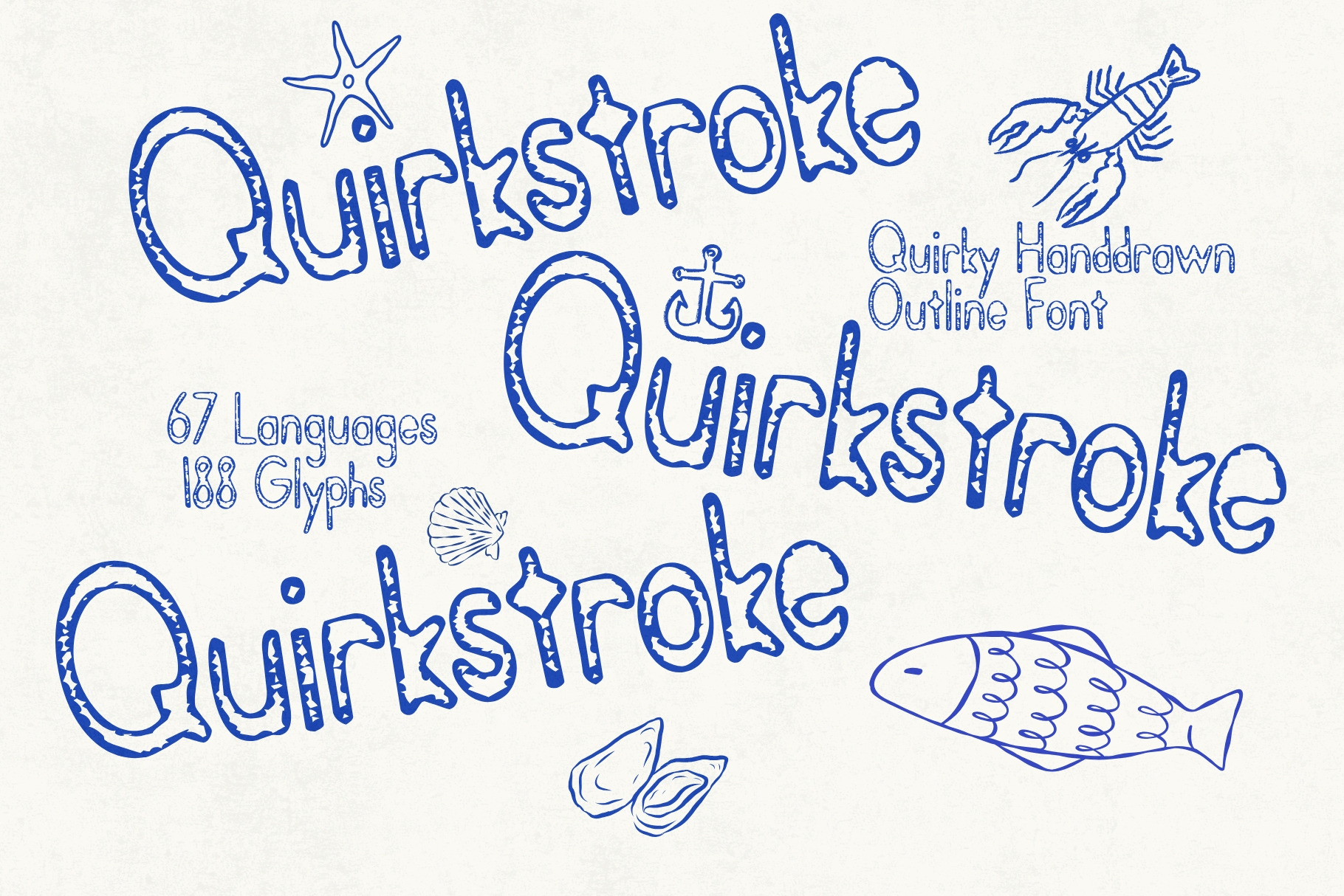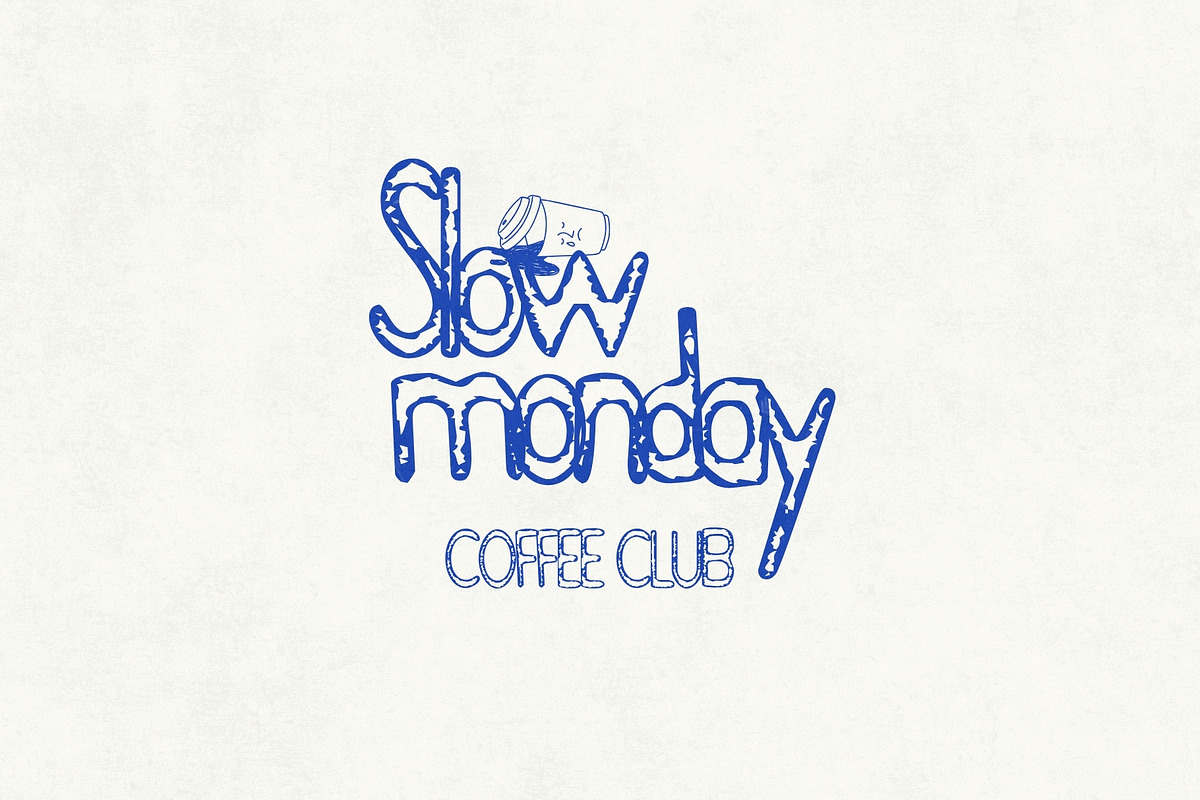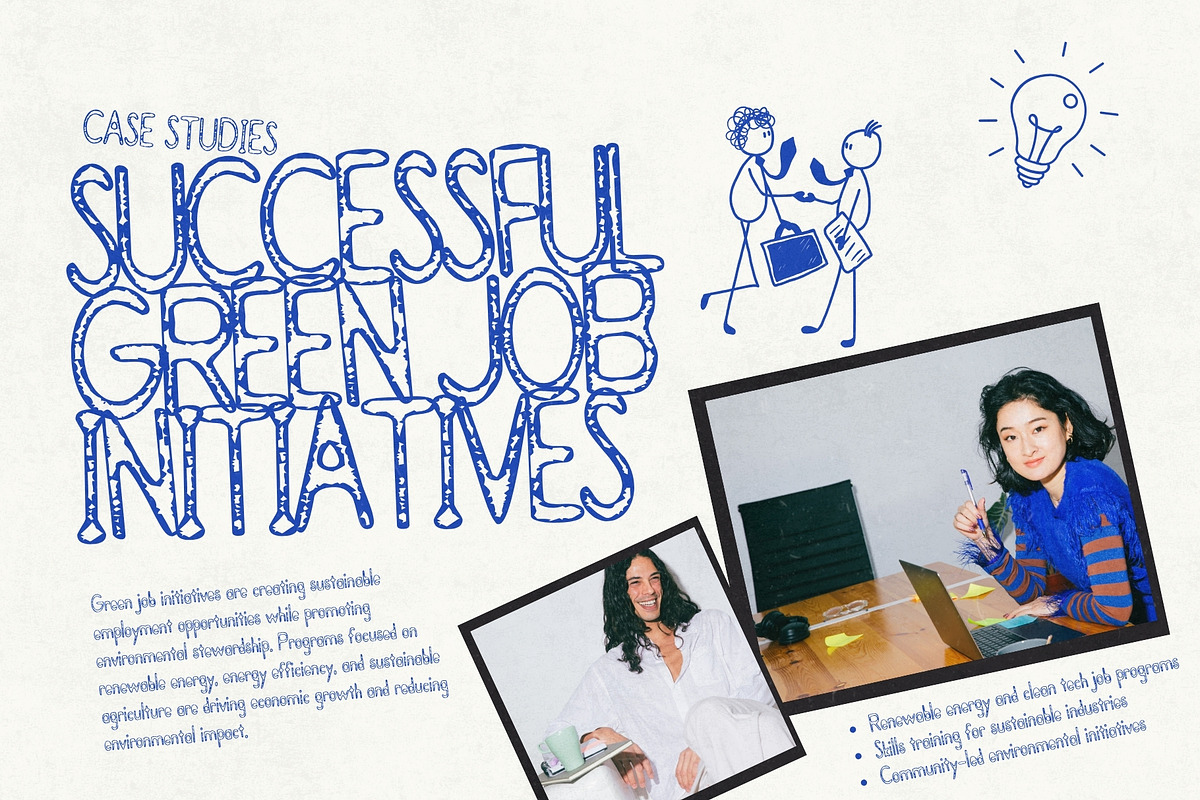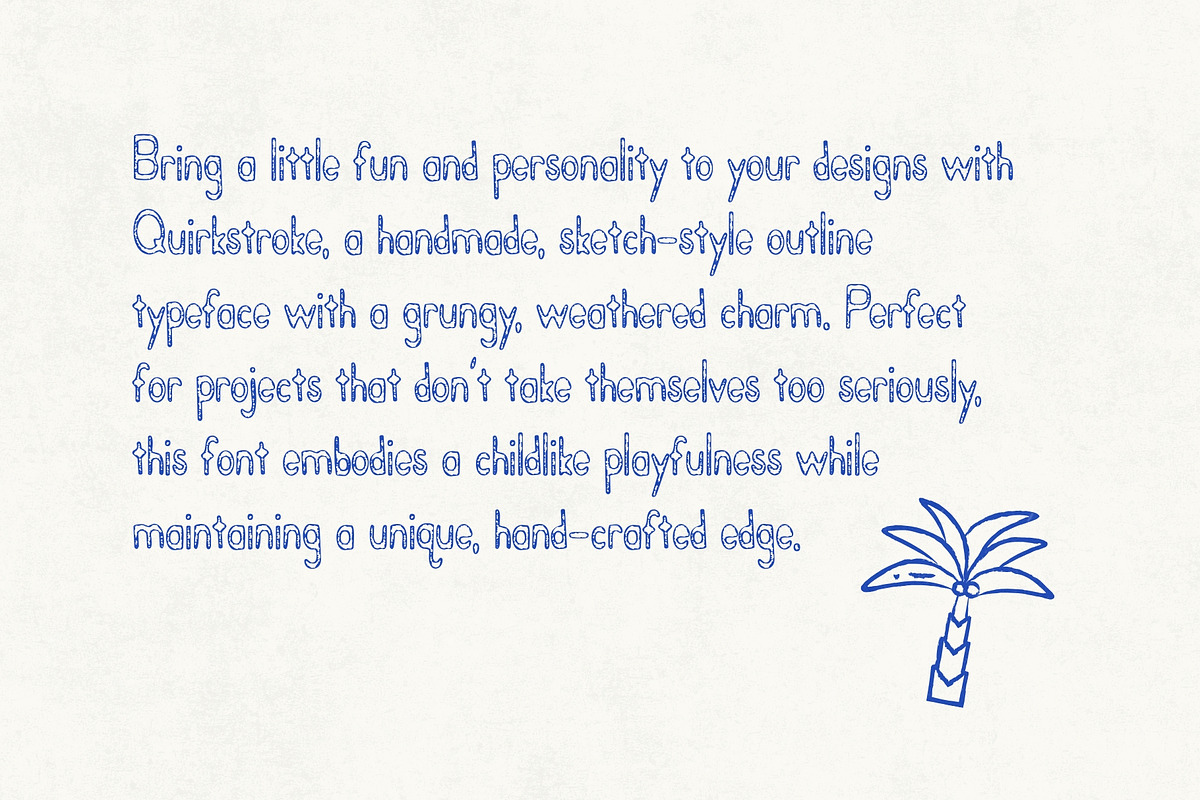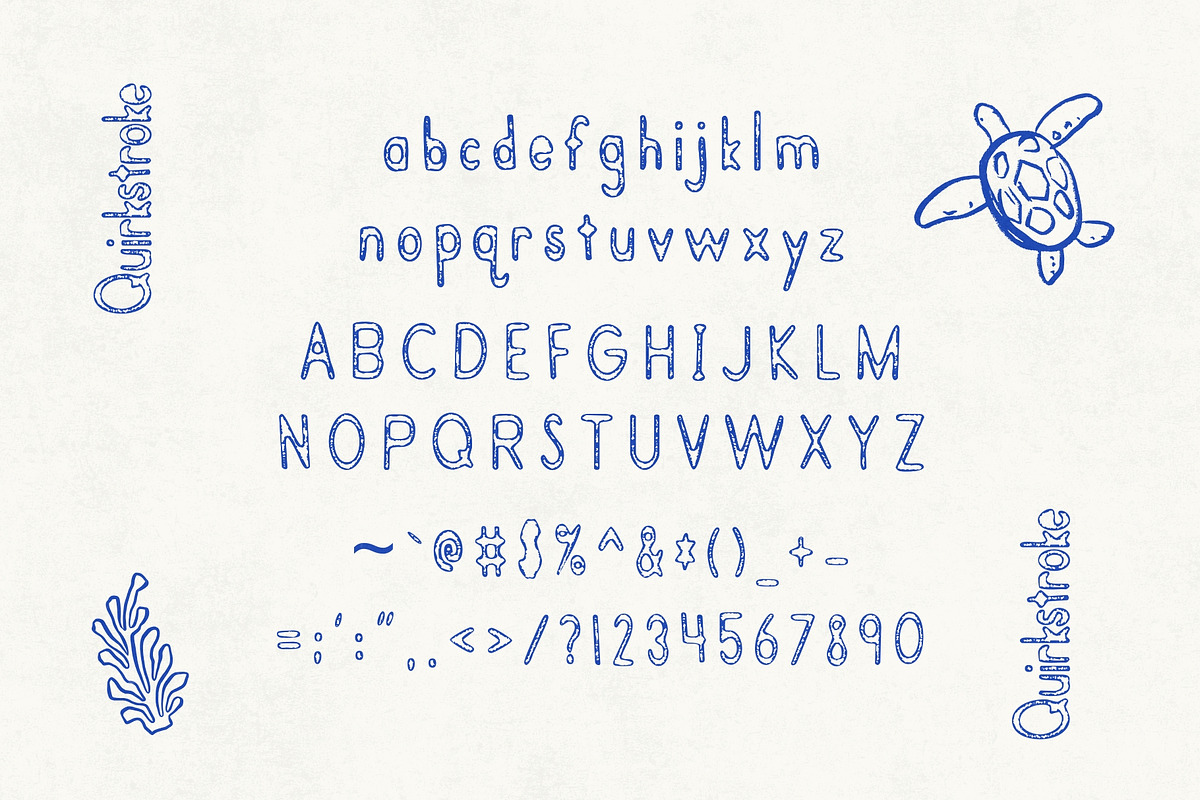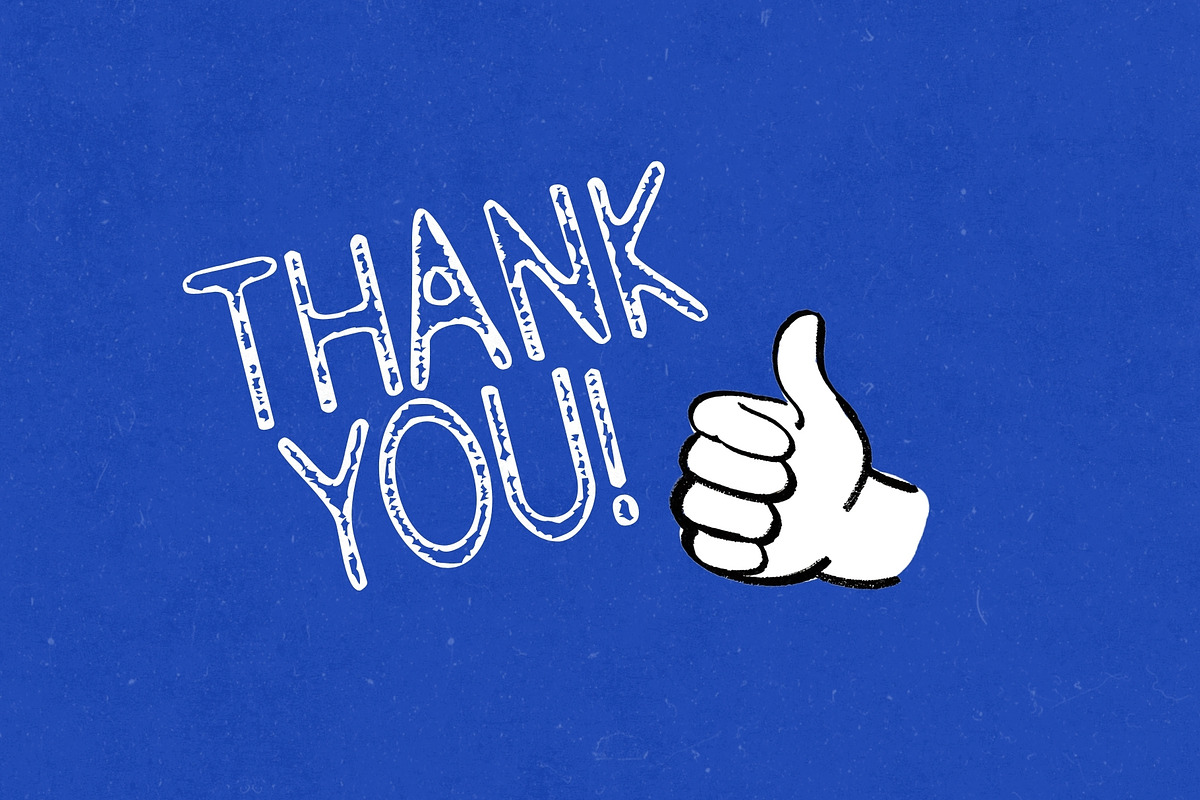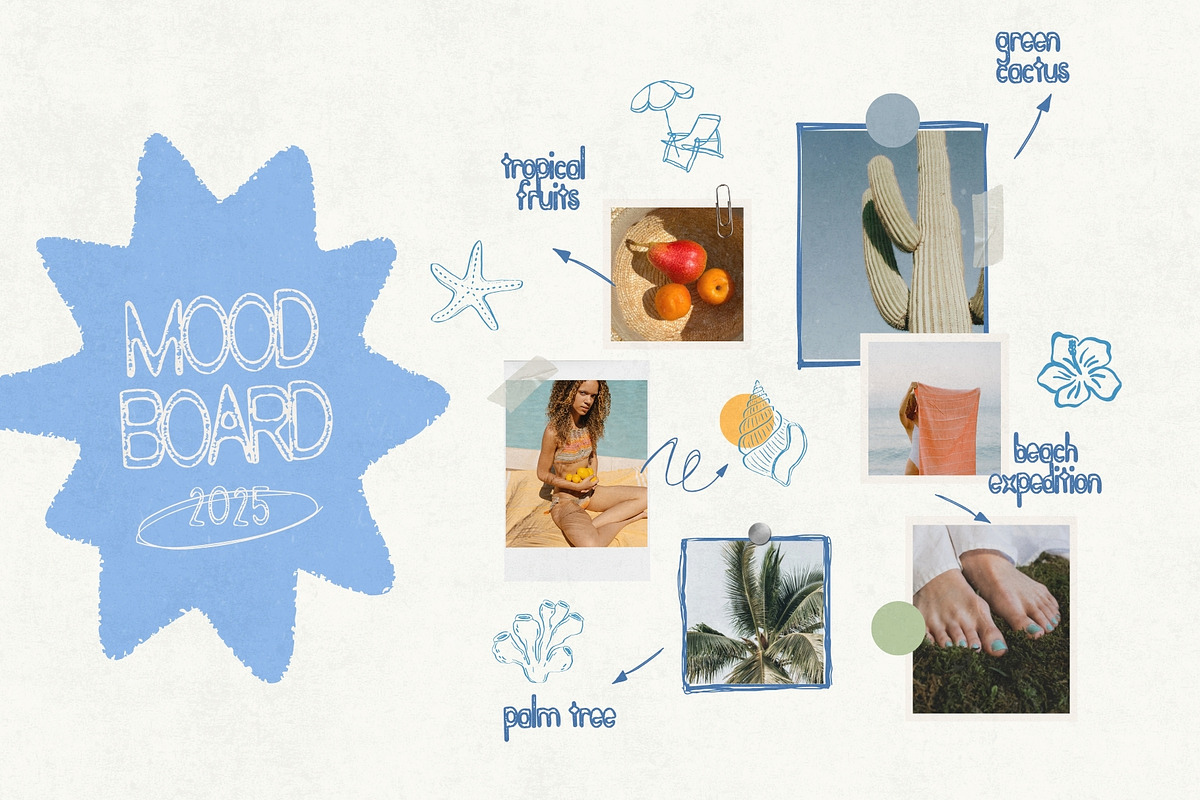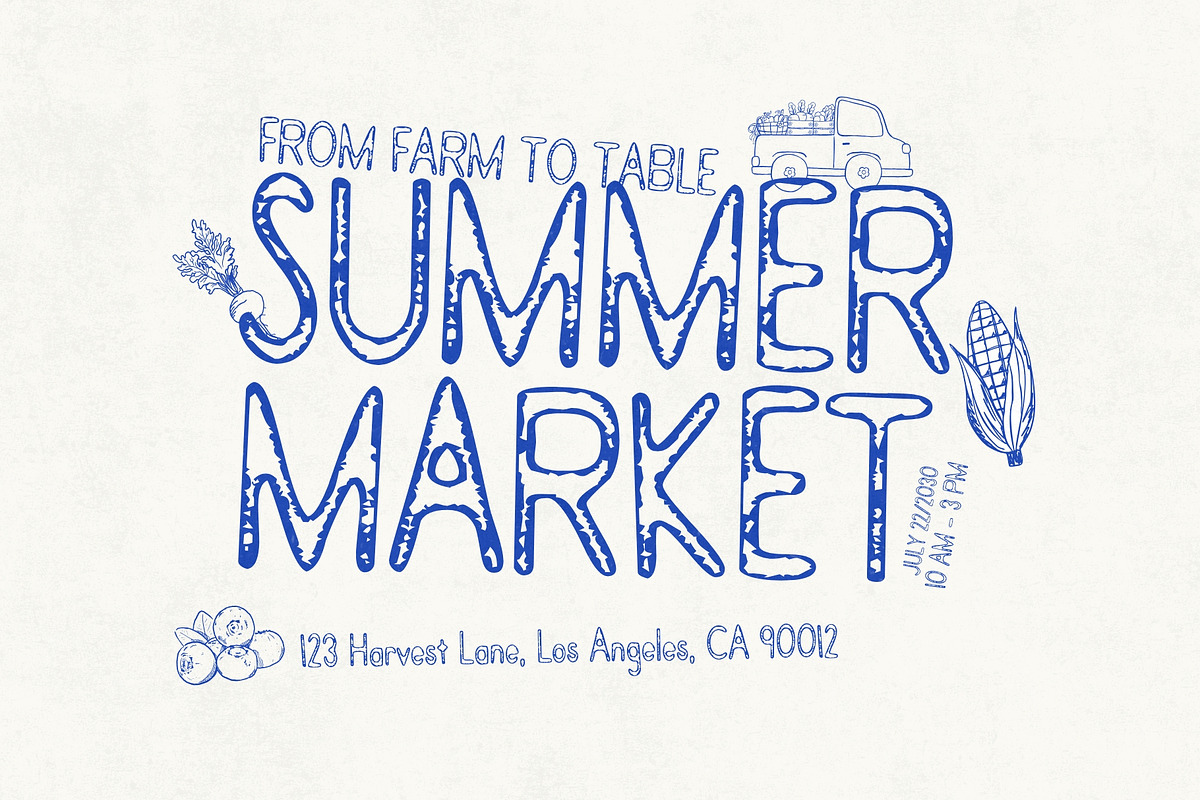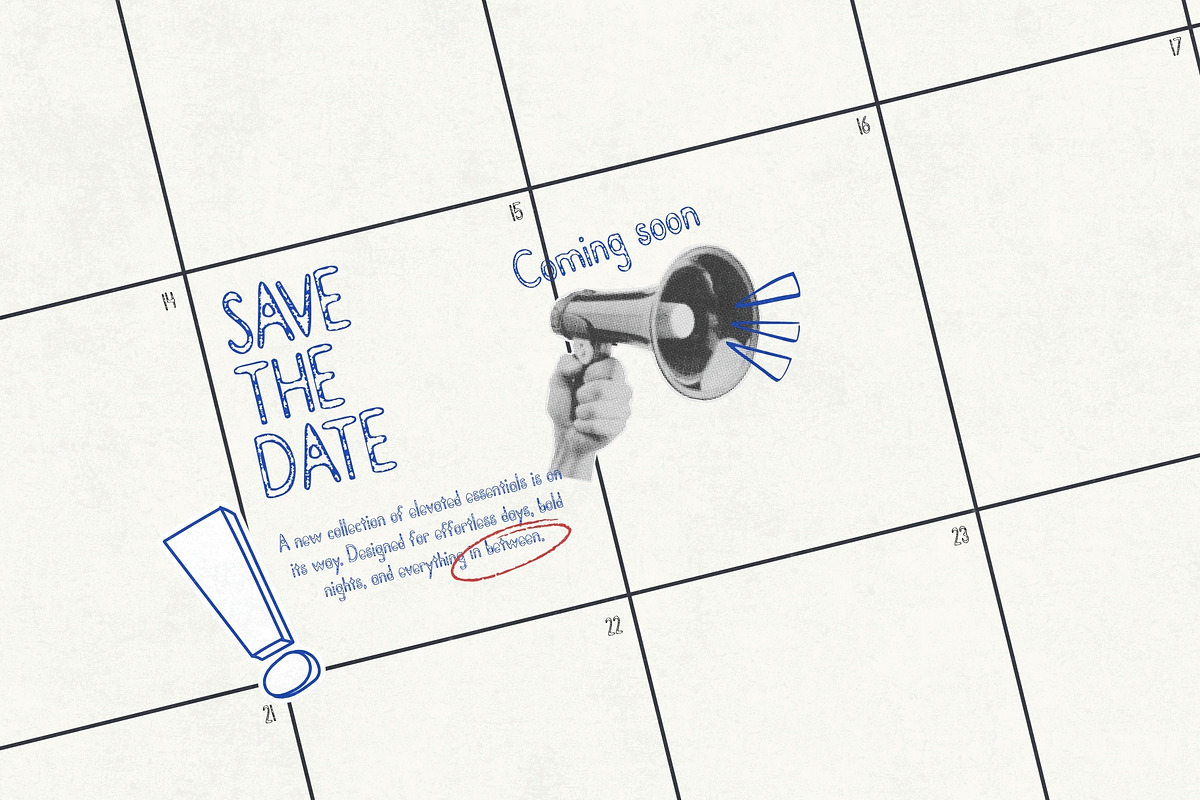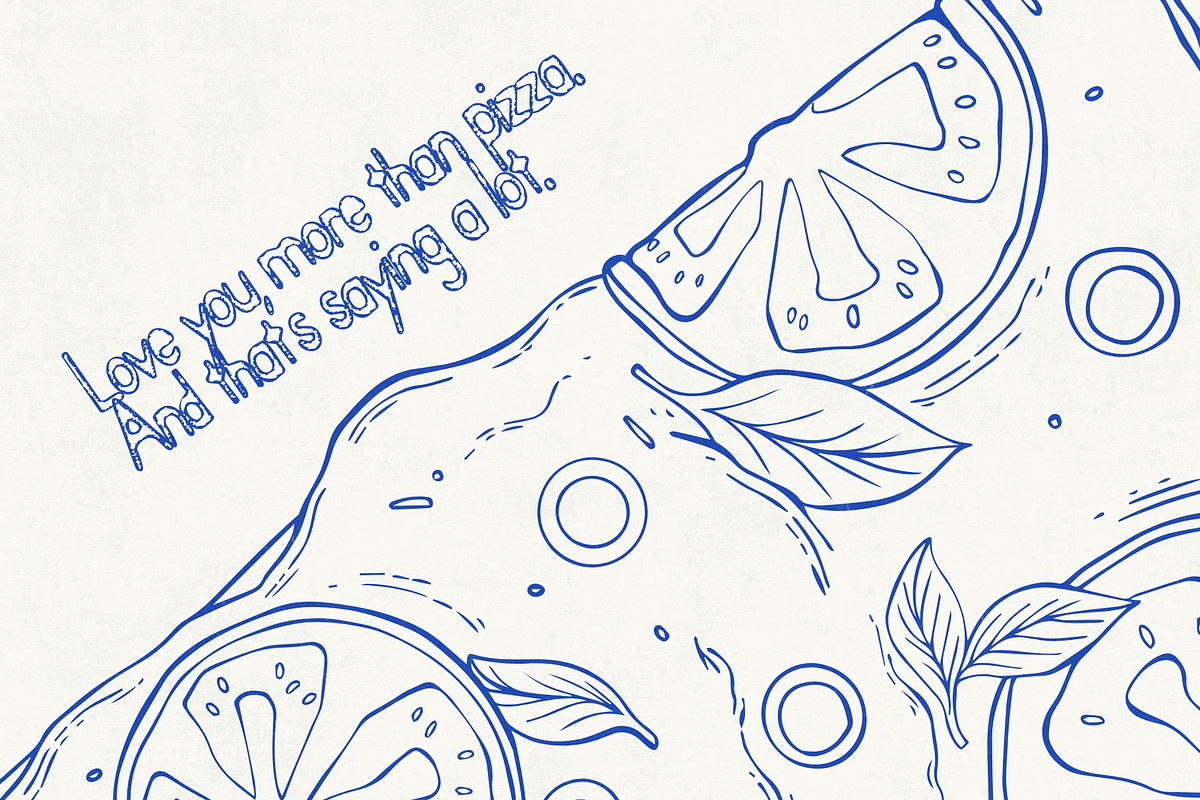
Quirkstroke - Weathered Typeface
Bring a little fun and personality to your designs with Quirkstroke, a handmade, sketch-style outline typeface with a grungy, weathered charm. Perfect for projects that don’t take themselves too seriously, this font embodies a childlike playfulness while maintaining a unique, hand-crafted edge.
Every line, curve, and rough edge feels intentionally imperfect, giving your work a creative, whimsical vibe that’s perfect for posters, invitations, crafts, kids’ designs, branding, or any project that benefits from a touch of personality and spontaneity.
Quirkstroke combines fun, sketchy energy with a worn, handmade aesthetic, making it ideal for designers who want their typography to feel alive, playful, and utterly unique.